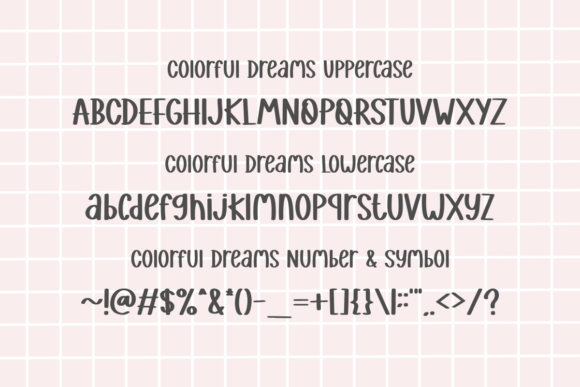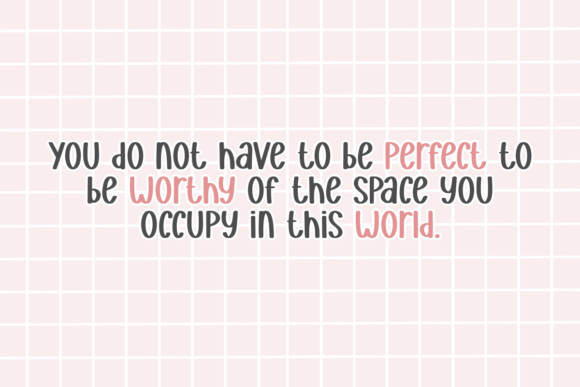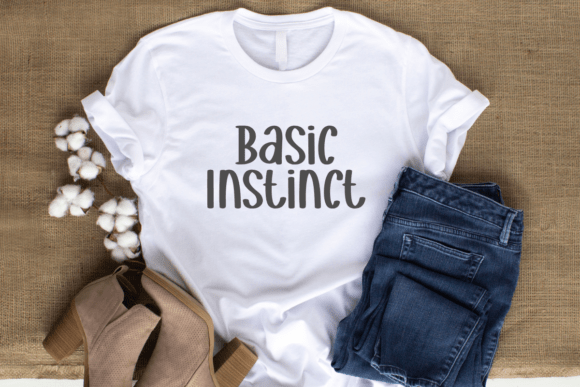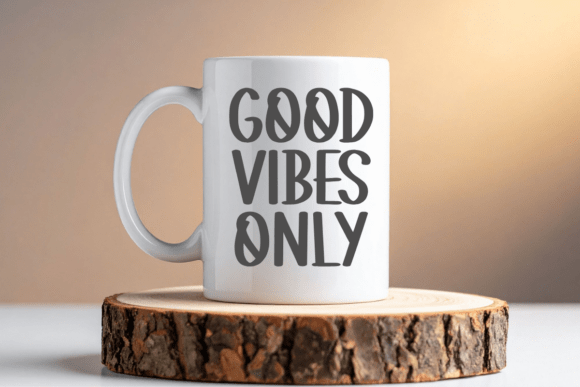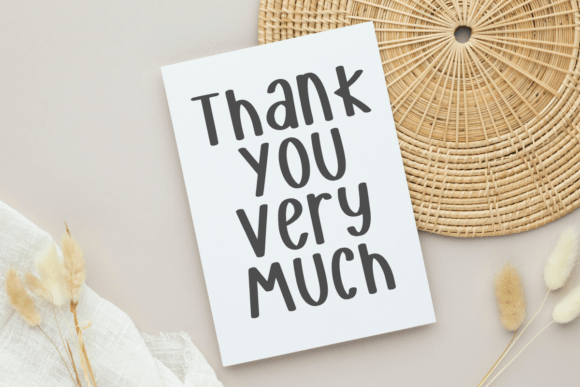
Introducing Colorful Dreams Font: Add a Splash of Fun to Your Designs!
Are you tired of using the same old fonts in your designs? Look no further! Colorful Dreams Font is here to bring a playful and vibrant touch to your creations. This delightful display font is perfect for crafters, designers, and anyone looking to add a pop of color to their projects.
What Makes Colorful Dreams Font So Special?
Colorful Dreams Font is a one-of-a-kind, playful display font that is sure to capture attention. Its unique and colorful design makes it ideal for a wide range of projects, from Cricut crafts to logos, shirts, SVG files, planners, stickers, quotes, and social media graphics. The font’s playful and whimsical feel is sure to add a touch of personality to any design.
Perfect for Cricut Projects
If you’re a Cricut enthusiast, you’ll love Colorful Dreams Font! This font is specifically designed to work seamlessly with Cricut cutting machines, making it easy to create custom vinyl decals, iron-on designs, and paper crafts. With Colorful Dreams Font, you can add a splash of color and personality to your Cricut projects, making them truly one-of-a-kind.
The versatility of Colorful Dreams Font is one of its best features. This font can be used for a wide range of design projects, including:
• Logos: Create a colorful and eye-catching logo for your business or brand.
• Shirts: Design custom t-shirts, hoodies, and other apparel with a playful and colorful font.
• SVG Files: Use Colorful Dreams Font to create custom SVG files for cutting machines or other digital projects.
• Planners: Add a touch of color and personality to your planners and journals.
• Stickers: Create custom stickers with a fun and playful font.
• Quotes: Design inspiring and colorful quotes for social media or print projects.
• Social Media Graphics: Add a splash of color to your social media graphics, including Facebook posts, Instagram stories, and more.
Why Choose Colorful Dreams Font?
So, why should you choose Colorful Dreams Font for your design projects? Here are just a few reasons:
• Unique Design: Colorful Dreams Font features a one-of-a-kind design that’s sure to stand out.
• Playful and Whimsical: This font adds a touch of personality and whimsy to any design.
• Versatile: Use Colorful Dreams Font for a wide range of design projects, from Cricut crafts to logos and social media graphics.
Get Ready to Bring Your Designs to Life!
Tips and Tricks for Using Colorful Dreams Font
Here are a few tips and tricks for getting the most out of Colorful Dreams Font:
• Experiment with Colors: Try out different color combinations to find the perfect look for your design.
• Mix and Match: Combine Colorful Dreams Font with other fonts and design elements to create a unique look.
• Play with Size: Experiment with different font sizes to add emphasis and visual interest to your design.
In conclusion, Colorful Dreams Font is a playful and vibrant display font that’s perfect for designers, crafters, and anyone looking to add a splash of color to their projects. With its unique design, versatility, and ease of use, this font is sure to become a favorite in your design arsenal. So why wait? Download Colorful Dreams Font today and start bringing your designs to life!